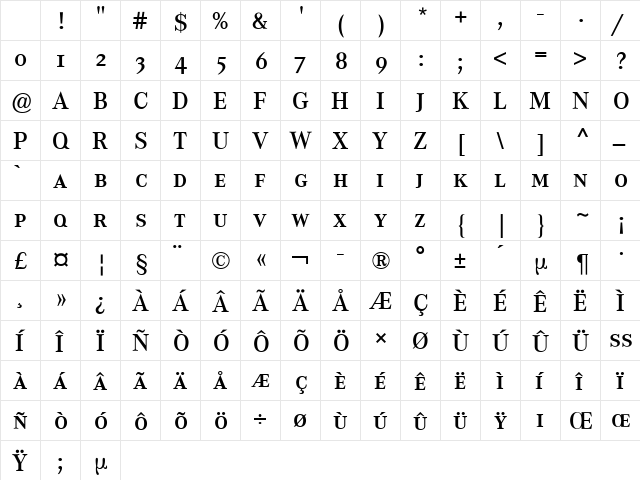
Complete Corporate A Expert BQ Medium glyph index. Displaying only characters natively supported by Corporate A Expert BQ Medium font.
Corporate A Expert BQ is a composed and adaptable typeface that performs quietly and consistently across a wide range of design contexts.
Who designed the Corporate A Expert BQ Medium font?